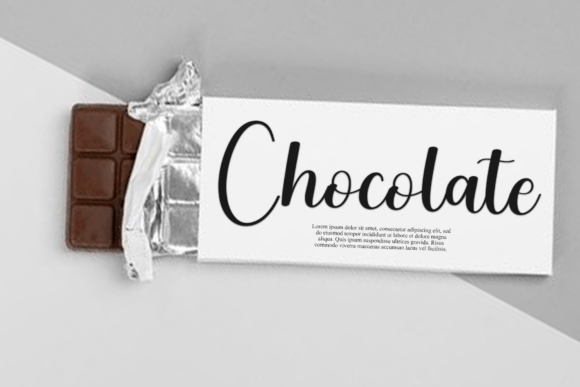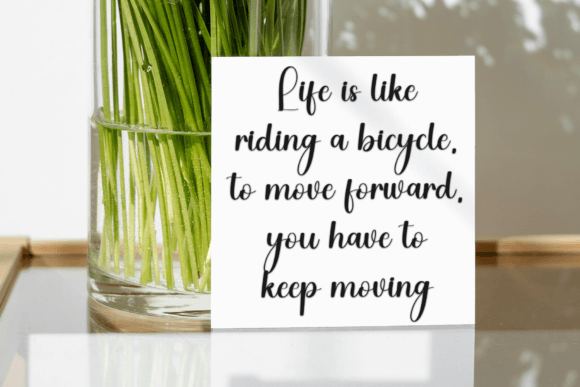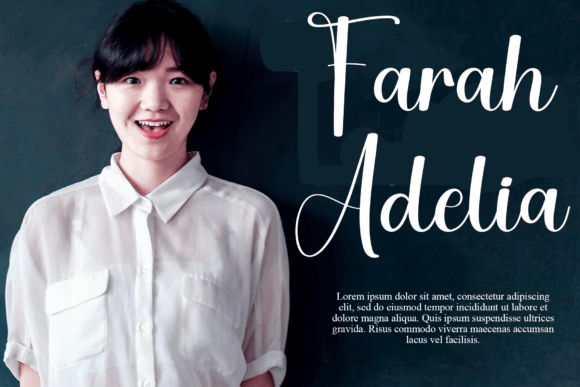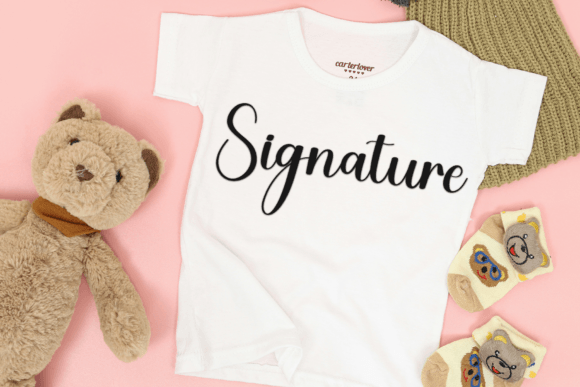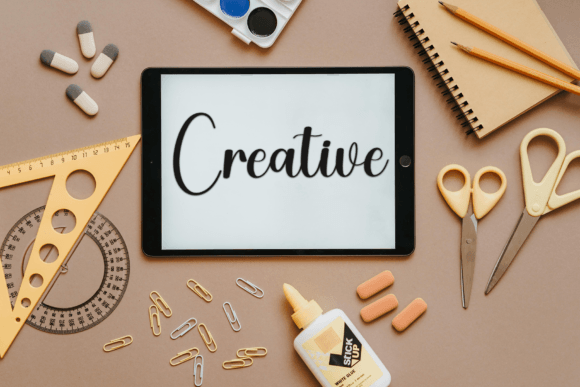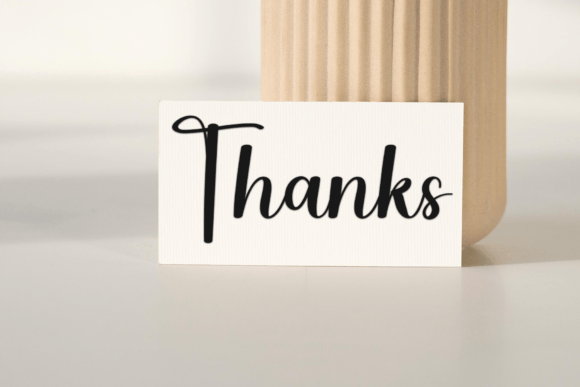
Introduction to Purple Special Font
Have you ever been stuck on a creative project, searching for the perfect font to bring your design to life? You know, that moment when everything seems to be falling into place, but that one element is missing – the perfect script to make your message stand out. For designers, this is a common conundrum, but with the right design resource, it can be a thing of the past. Enter the Purple Special Font, a sweet and friendly handwritten font that’s about to become your new best friend.
This high-quality font boasts a natural and unique style that’s incredibly versatile, making it the perfect addition to any creative project. With its free download option, you can experiment with different designs without breaking the bank. Plus, with its transparent background, you can easily layer it over any image or background, giving you endless possibilities.
- High-quality design resource with a unique, creative touch
- Perfect for creative projects, including logos, branding, and editorial design
Honest Review: Purple Special Font
As a designer, I’m always on the lookout for high-quality design resources to elevate my creative projects. I recently had the chance to work with the Purple Special Font, and I’m excited to share my honest review.
- ✨ Beautiful, unique typography that adds a touch of elegance to any design
- ✨ Great for creative projects where you want to make a statement
- ⚠️ Limited font sizes and styles, which might be a drawback for some designers
- ⚠️ Not ideal for body text, as it can be overwhelming in larger quantities
Overall, I think the Purple Special Font is a great addition to any designer’s toolkit. While it may have some limitations, its unique charm and high-quality design make it a valuable resource for creative projects. I’ll definitely be using it again in the future.
Purple Special Font is ideal for creative projects that require a unique and high-quality font. It’s perfect for designing flyers, posters, and social media graphics. The font’s transparent background makes it easy to use with any design element.
To get the most out of Purple Special Font, use it in conjunction with a high-quality image or graphic. The font’s unique design will add a creative touch to your project. You can also use the font in combination with other design elements, such as shapes and icons, to create a visually appealing design.